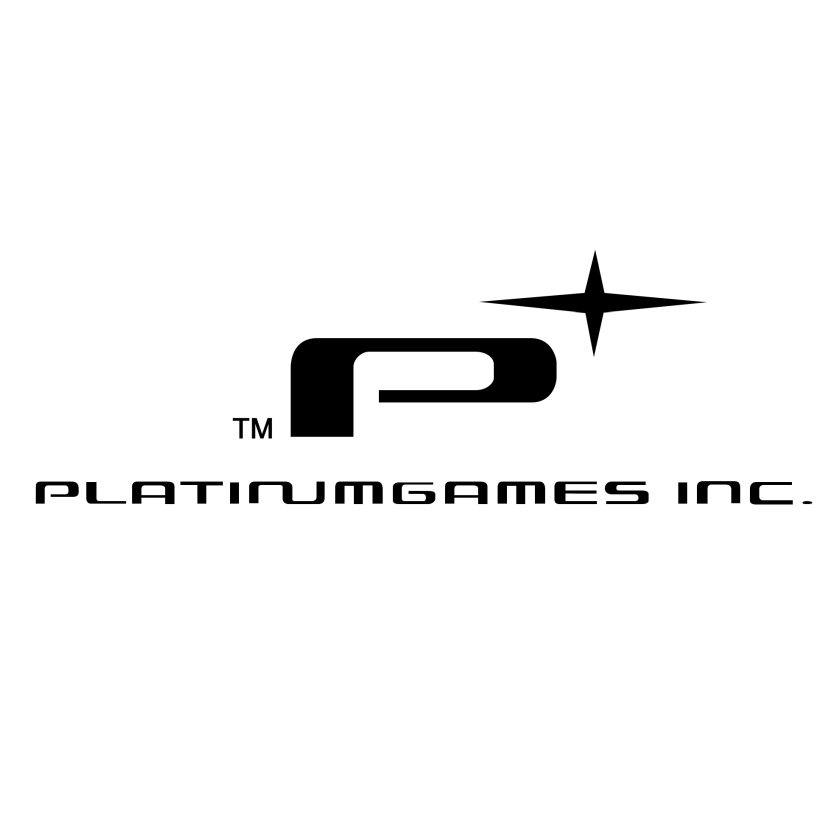
Platinum Games Font
Company & ConsolesPlatinumGames Inc. is a Japanese video game development studio known for its fast-paced action games such as Bayonetta and Nier: Automata.
The logo of Platinum Games features the Concielian Jet Expanded font with some modifications, particularly in the letter P and the NU ligature. Concielian Jet is a collection of 13 futuristic font styles that are available for free download in the Fonts Used Section.